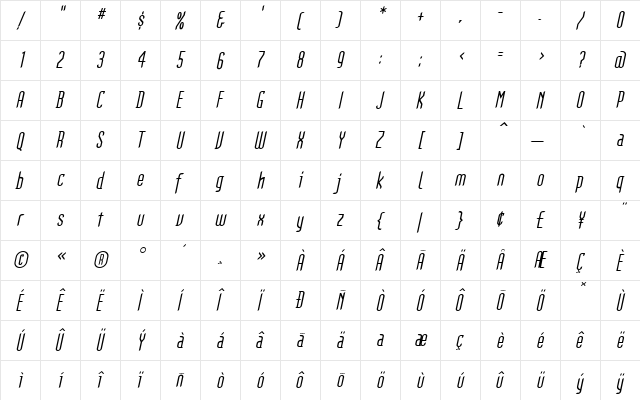
Gothikka Italic
Design Context for Gothikka Typeface
Gothikka is a composed and adaptable typeface that performs quietly and consistently across a wide range of design contexts. The dynamic lean of this cut emphasises speed and emphasis in any layout.
Pro Tip: Use Gothikka for emphasis, pull quotes, and subheadings where its slanted energy can add rhythm to the layout.